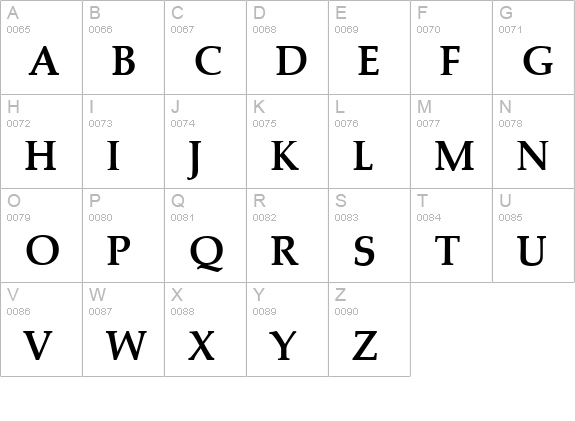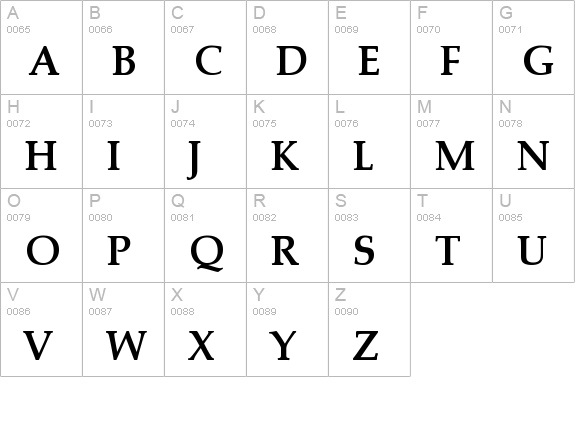
MarathonSerial-Bold is a strong, high-contrast variant in the MarathonSerial typeface family \xE2\x80\x94 well suited to headlines, attention-grabbing titles, and strong calls-to-action.
MarathonSerial-Bold is a bold and dynamic font that exudes strength and endurance. Its powerful and commanding presence makes it perfect for headlines, titles, and branding materials. The sharp and sleek design of MarathonSerial-Bold ensures that your message stands out and makes a lasting impression. What sets MarathonSerial-Bold apart is that it is available for free download at FontsMarket.com. This means you can enhance your projects with this impressive font without any cost. Whether you are working on a poster, logo, website, or any other design project, MarathonSerial-Bold is a versatile and impactful choice that will elevate your work to the next level. Download MarathonSerial-Bold today from FontsMarket.com and unleash its bold energy and style in your creative endeavors.